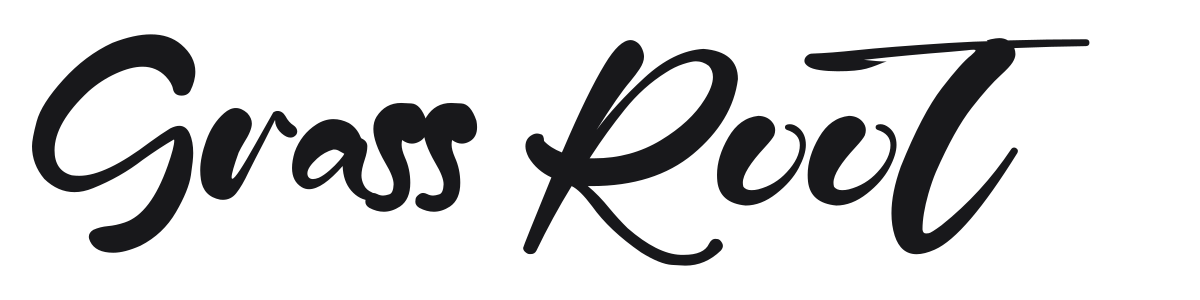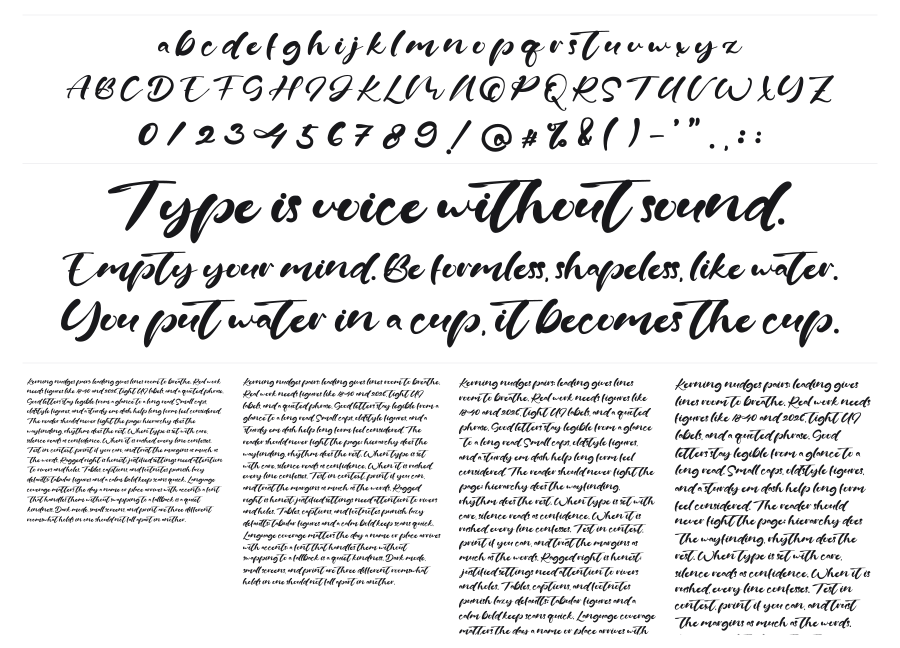
Grass Root
Grass Root is a bold contemporary brush script with the loose, energetic quality of hand-lettered signage. Thick downstrokes taper into fine hairlines with ink-like texture at the terminals, giving each character a natural, slightly unpredictable feel. It brings warmth and personality to logos, packaging, and editorial headlines.